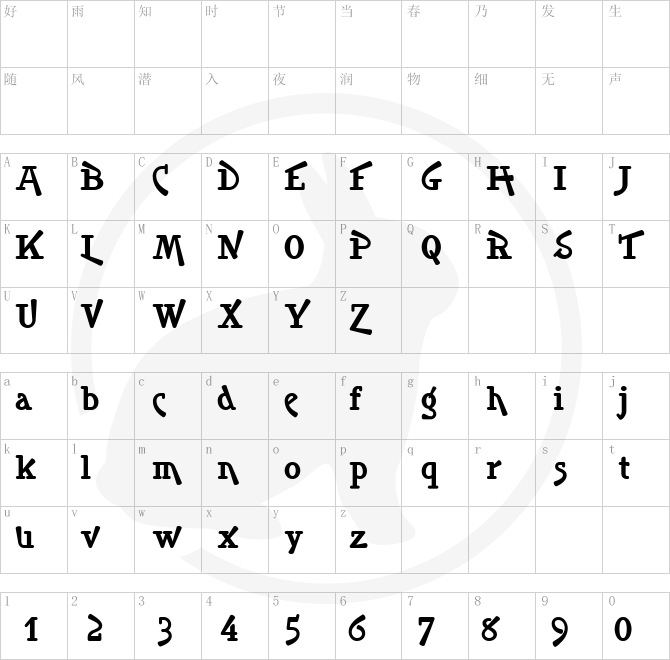
NankiPooNF-Medium.ttf is a very beautiful artistic font, NankiPooNF-Medium.ttf is widely used in the design and printing of various books and pictures,NankiPooNF-Medium.ttf has a strong visual impact,NankiPooNF-Medium.ttf is a commonly used font in newspapers, magazines and books, and is used in posters, e-commerce Poster design, store design, logo design, font design and other fields.NankiPooNF-Medium.